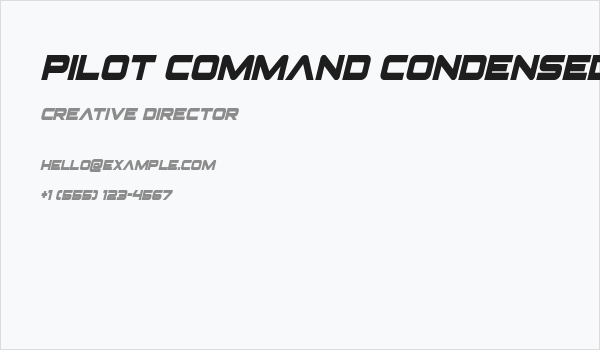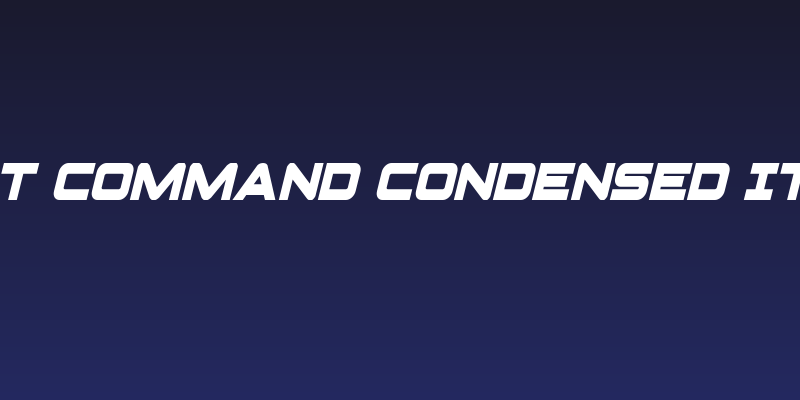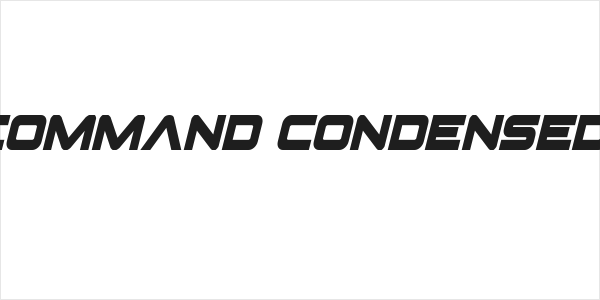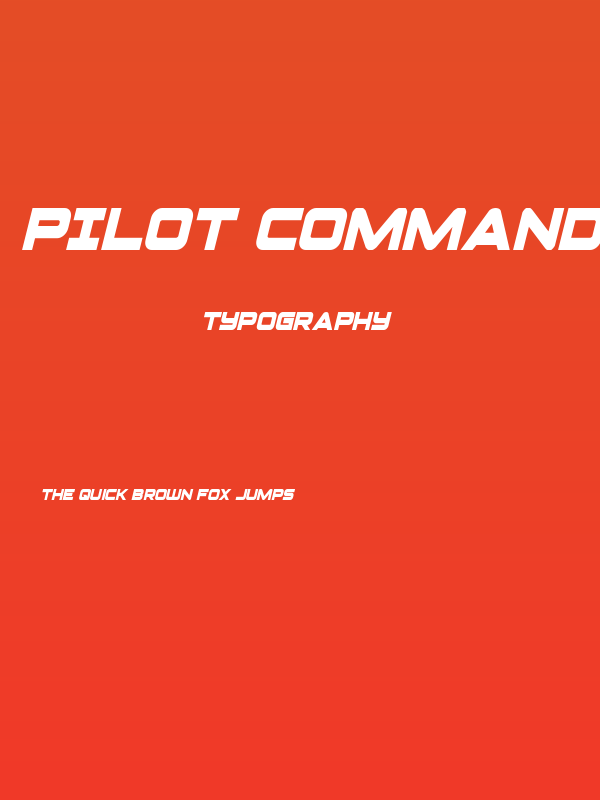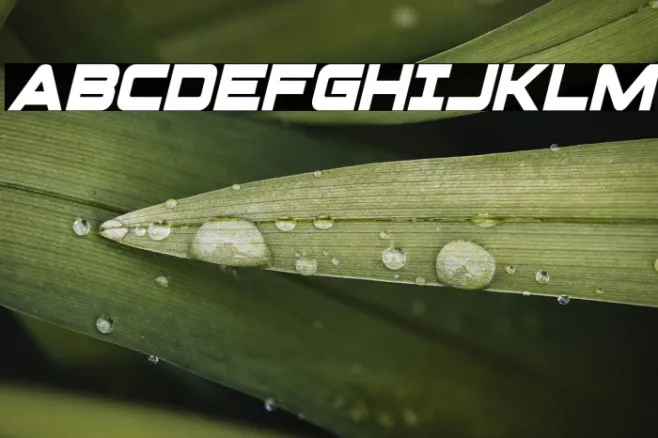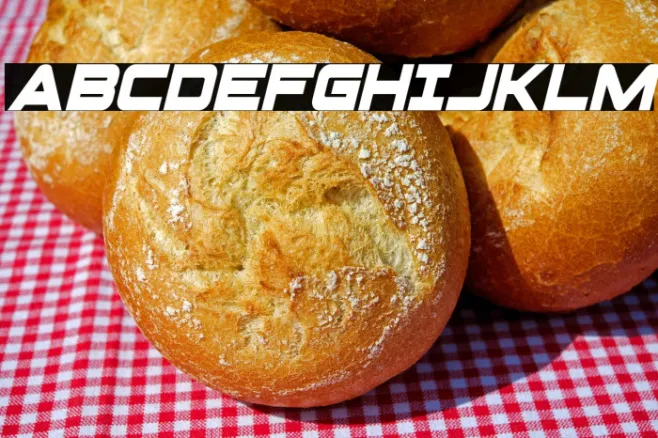
Pilot Command Condensed Italic Font
Pilot Command Condensed Italic Description
This font features a bold, italicized style with a condensed width, giving it a dynamic and modern appearance. The characters are sharply angled, providing a sense of movement and urgency. The uppercase and lowercase letters maintain a consistent slant, enhancing the italic effect. The numerals and special characters follow the same design principles, ensuring uniformity across all glyphs. The font's condensed nature allows for efficient use of space, making it suitable for headlines or titles where impact is essential. The bold strokes and angular design contribute to a high contrast, making the text stand out prominently.
| Proposed Projects | Ideal for sports branding, action movie posters, or dynamic website headers. |